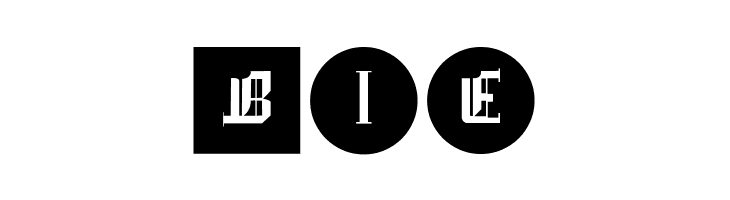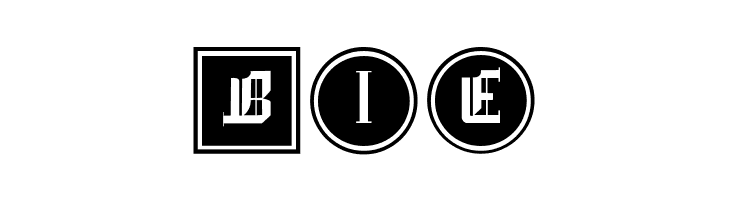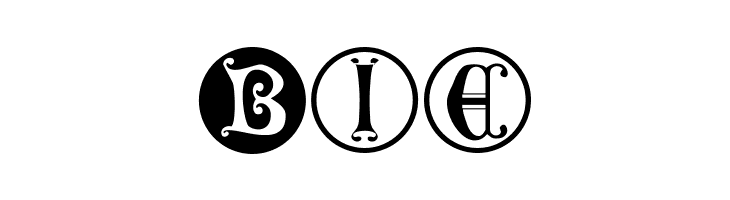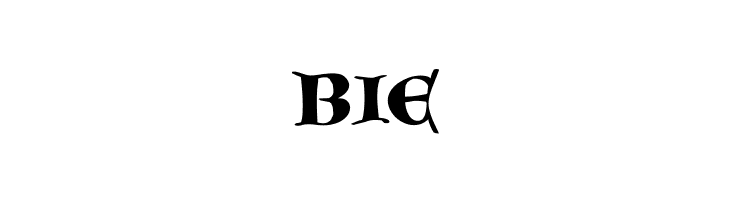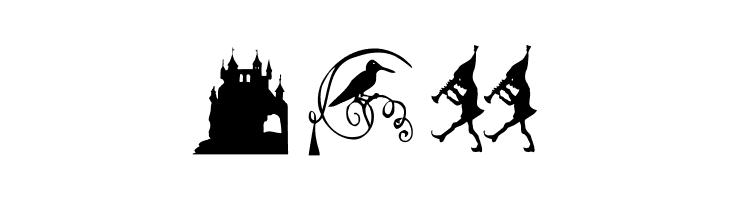
• GoodOldEyeCatchers
A vintage, hand-drawn display font inspired by retro advertisements.
• GoodOldTimes
A whimsical, decorative font featuring nostalgic silhouette scenes.
• Google
A classic serif typeface with high contrast and elegant serifs.
• Gothic 45
A bold, angular Gothic font with high contrast and a modern twist.
• GothicLetters
A decorative Gothic font with ornate, high-contrast characters encased in circles.
• GothicMajuscles
An ornate and decorative Gothic-style font with intricate flourishes.
• GoticaCaps
A bold, ornate blackletter font with medieval flair and intricate details.
• GoticCaps
An ornate, Gothic-style decorative font with intricate details.
• GotikaButtonsDrei
A bold, Gothic-style font with characters enclosed in geometric shapes.
• GotikaButtonsOne
A bold, gothic-inspired font with geometric enclosures for a modern, decorative look.